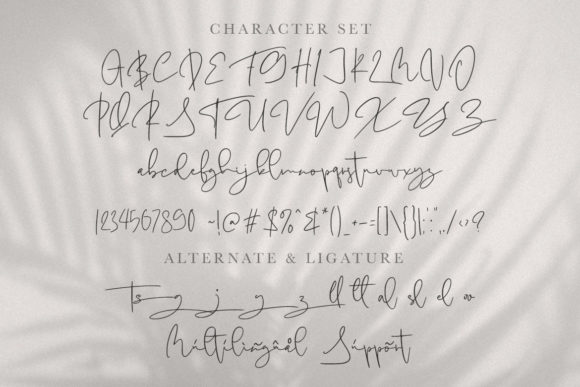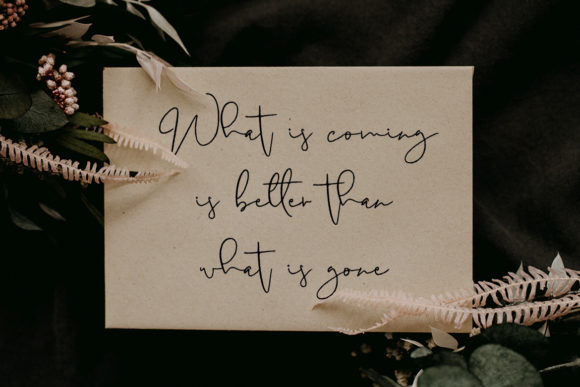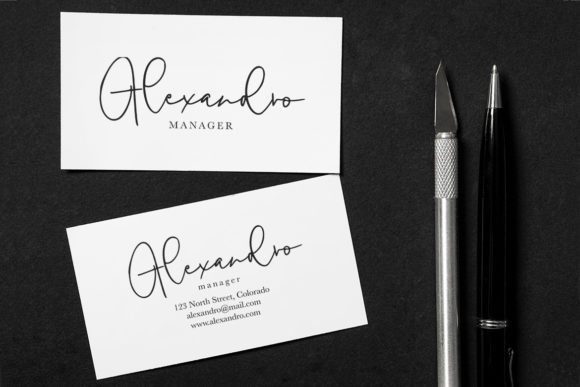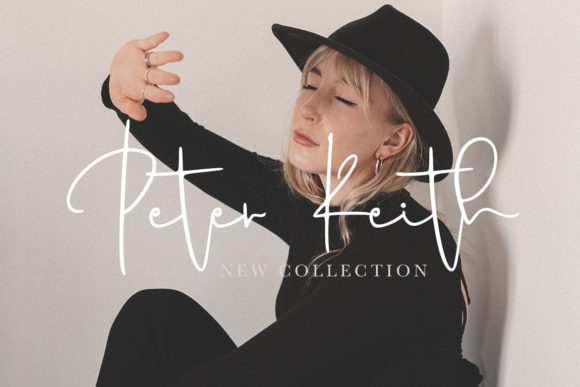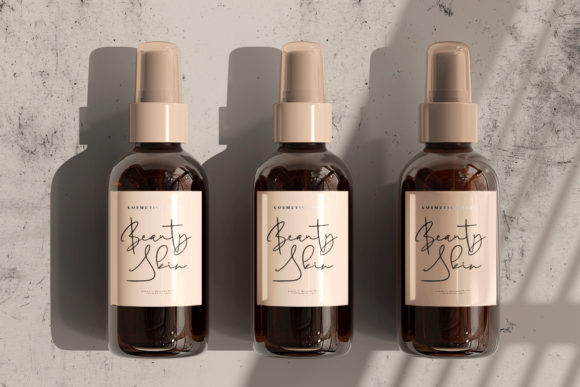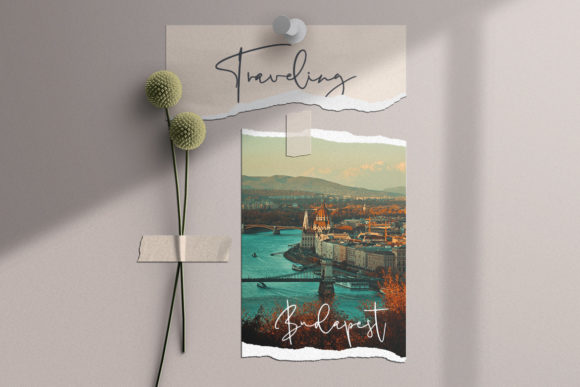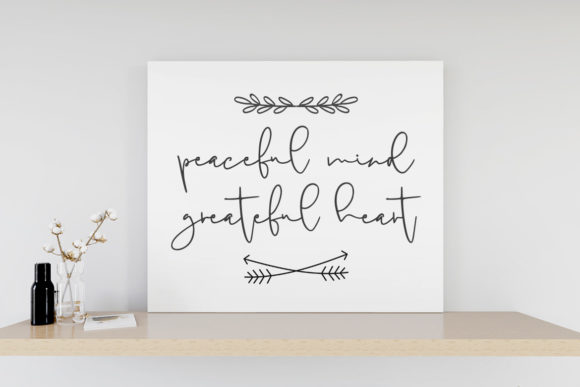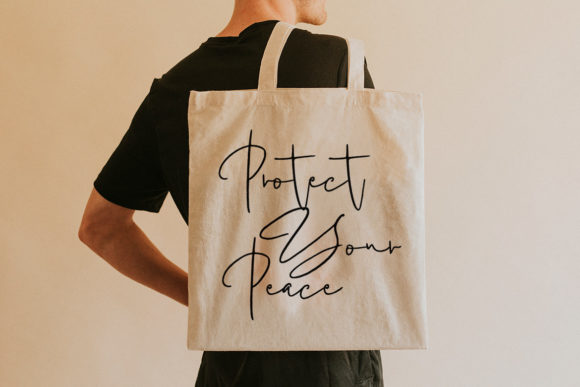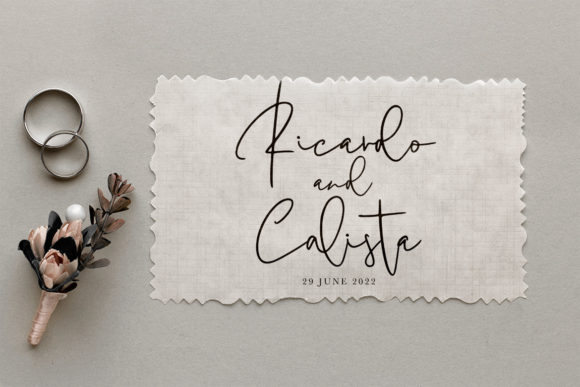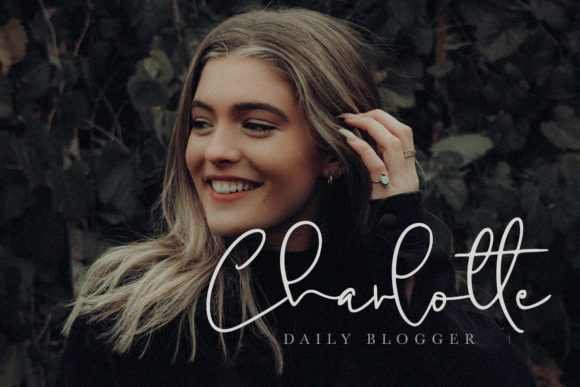
Antoinette Font
About Antoinette Font
Antoinette is a romantic and sweet calligraphy typeface with characters that dance along the baseline. It will add a luxury spark to any design project that you wish to create!